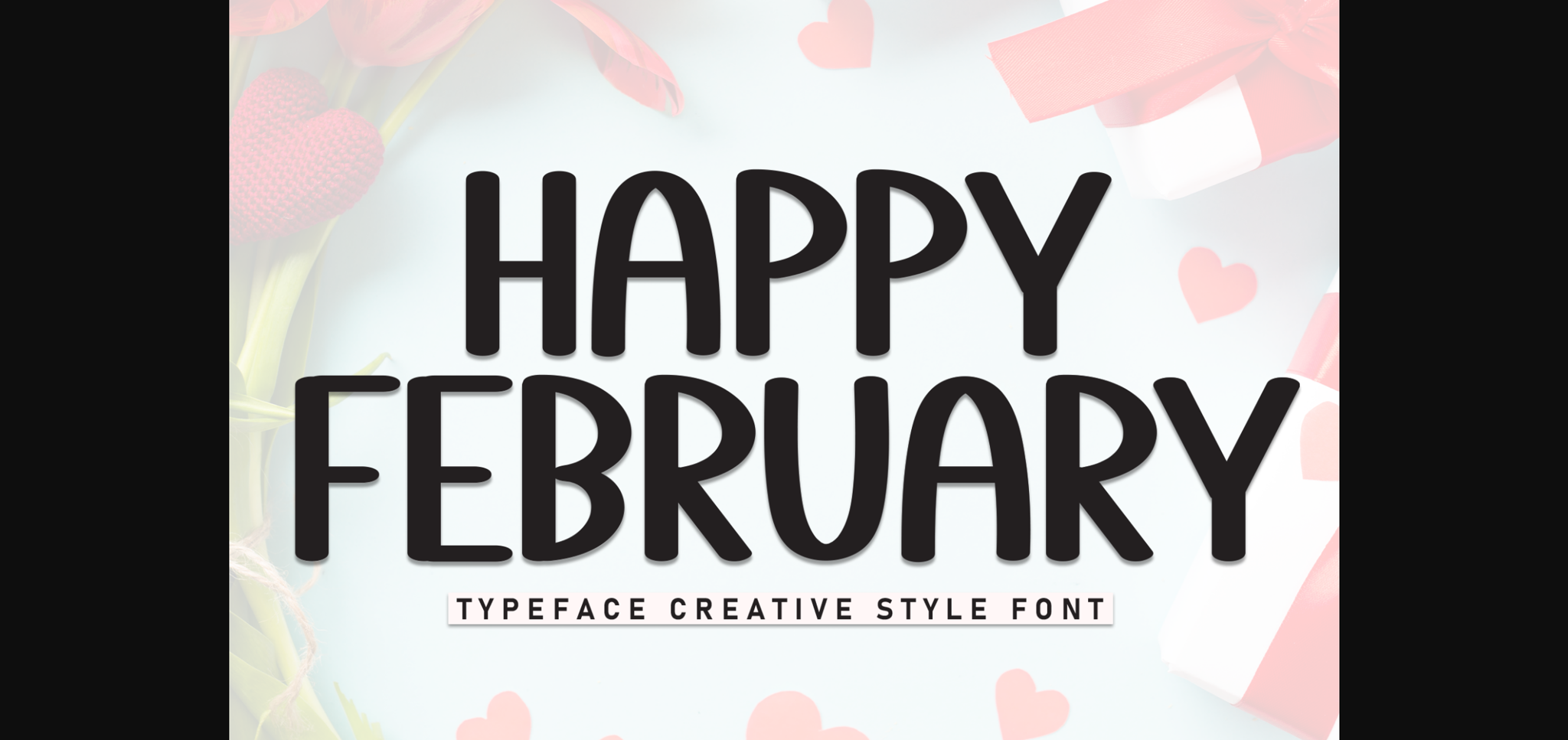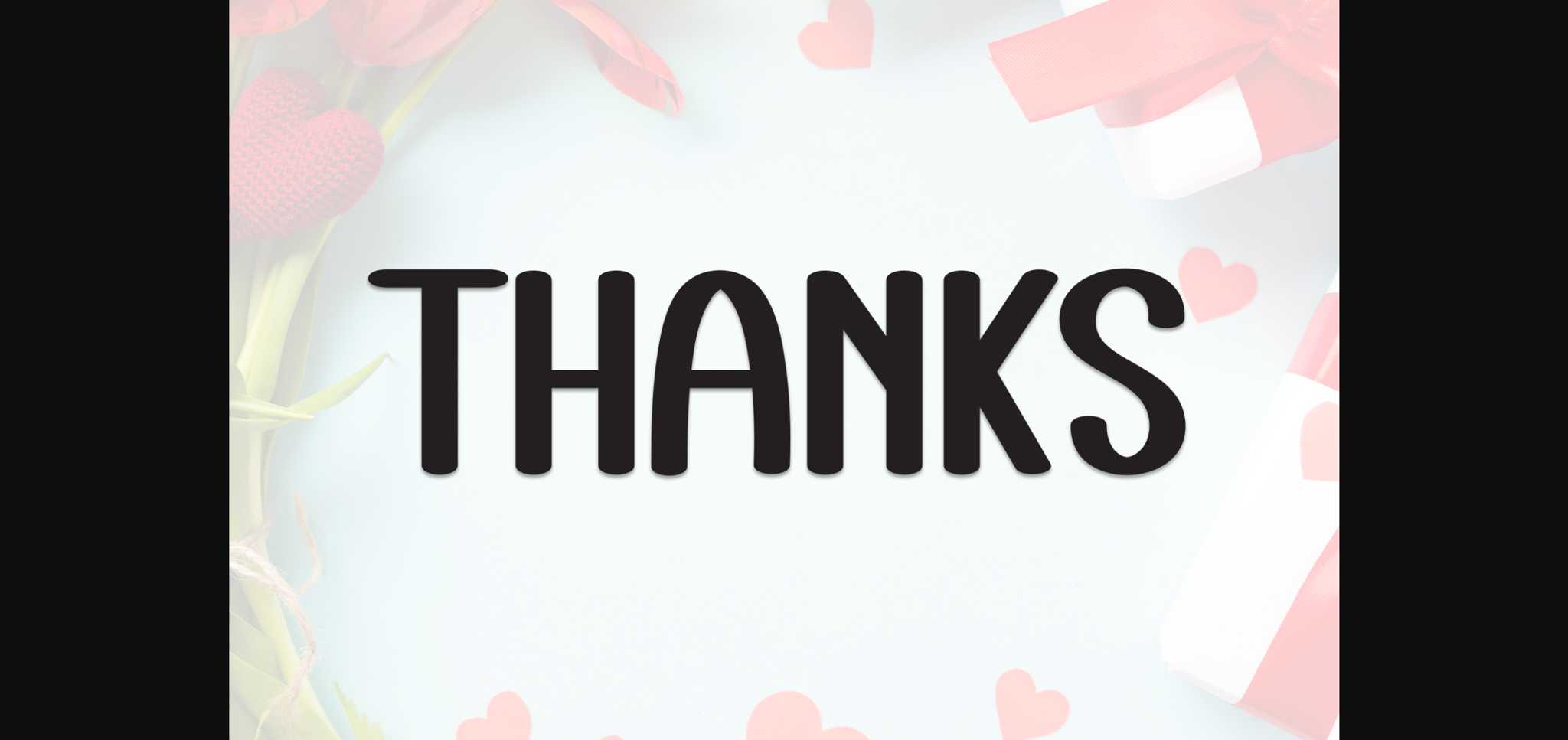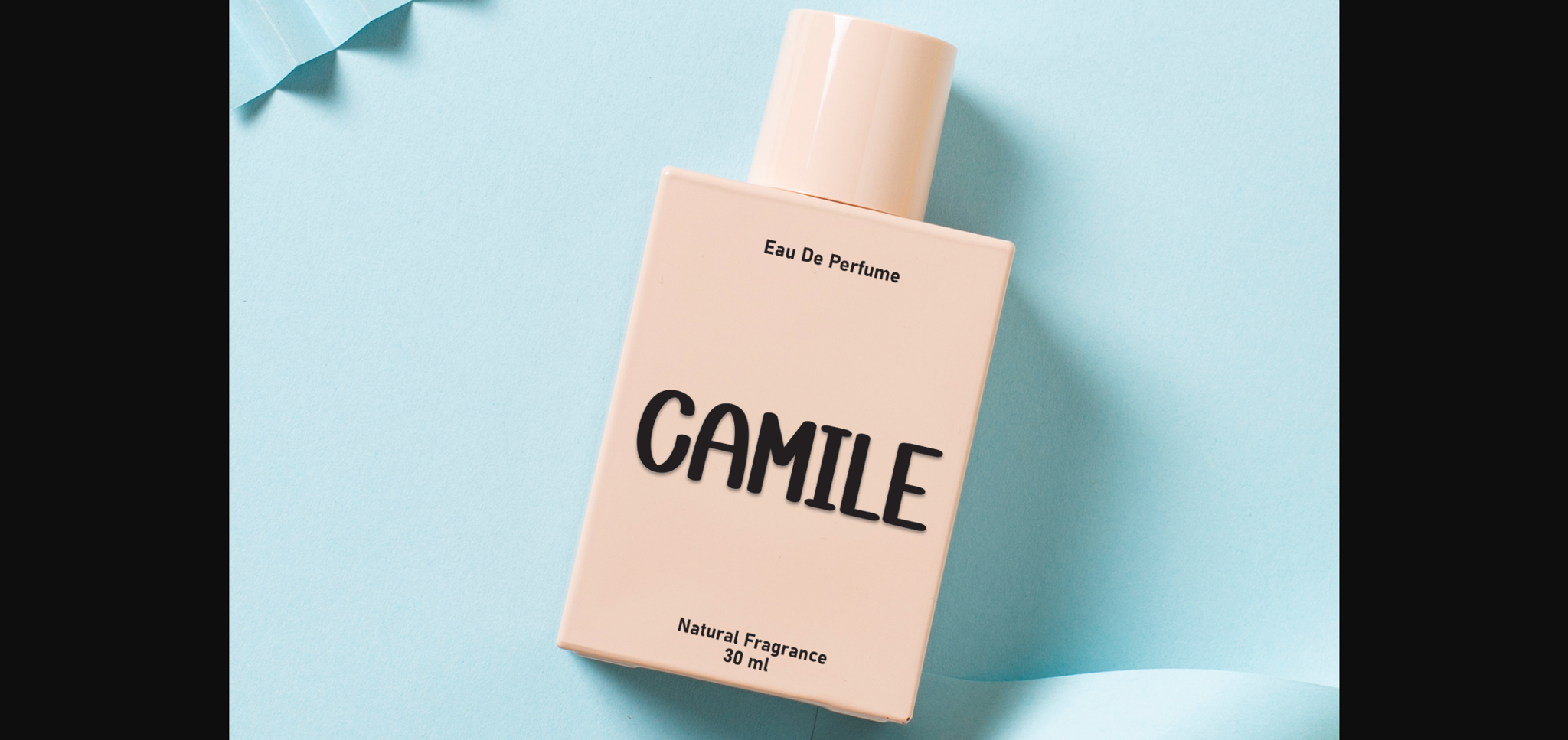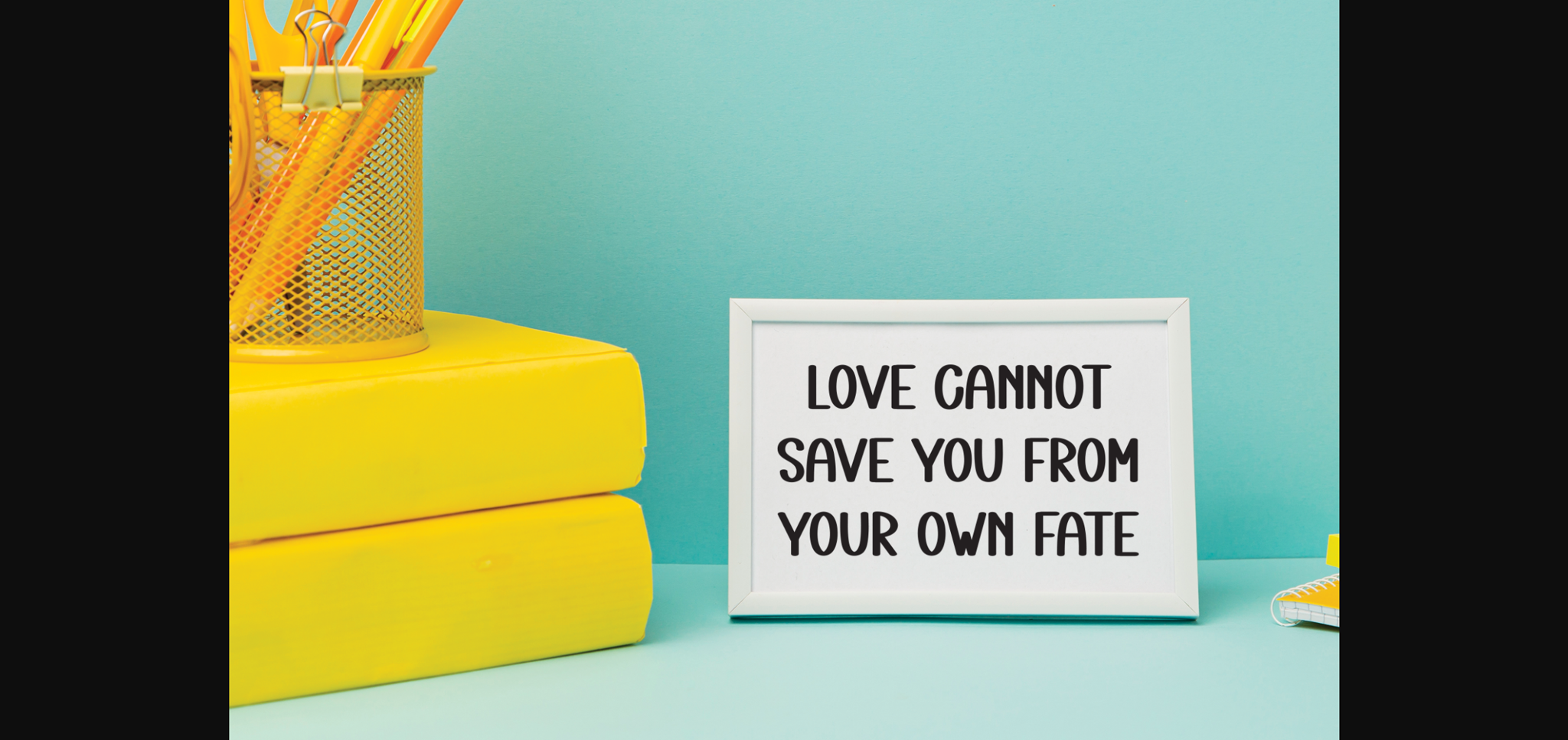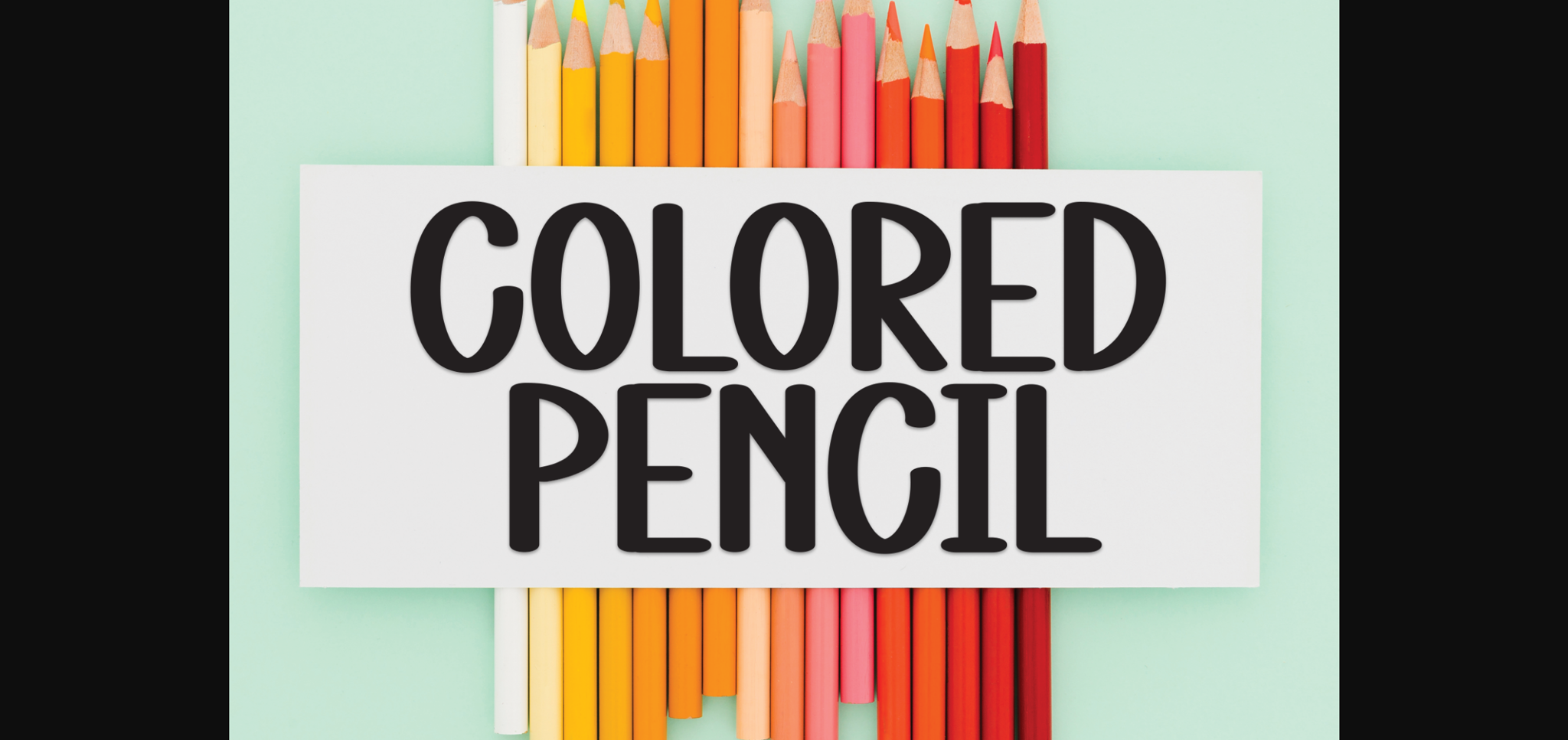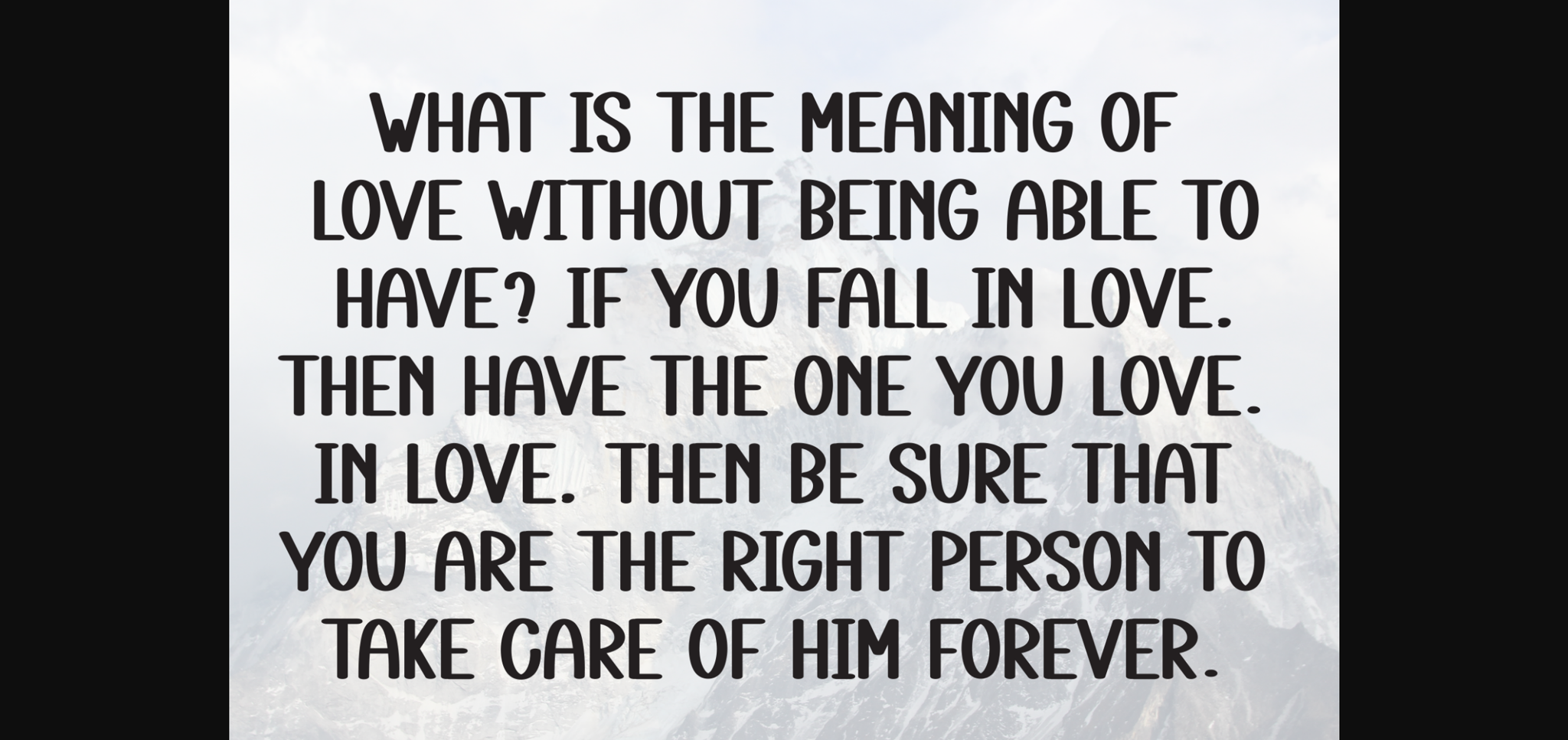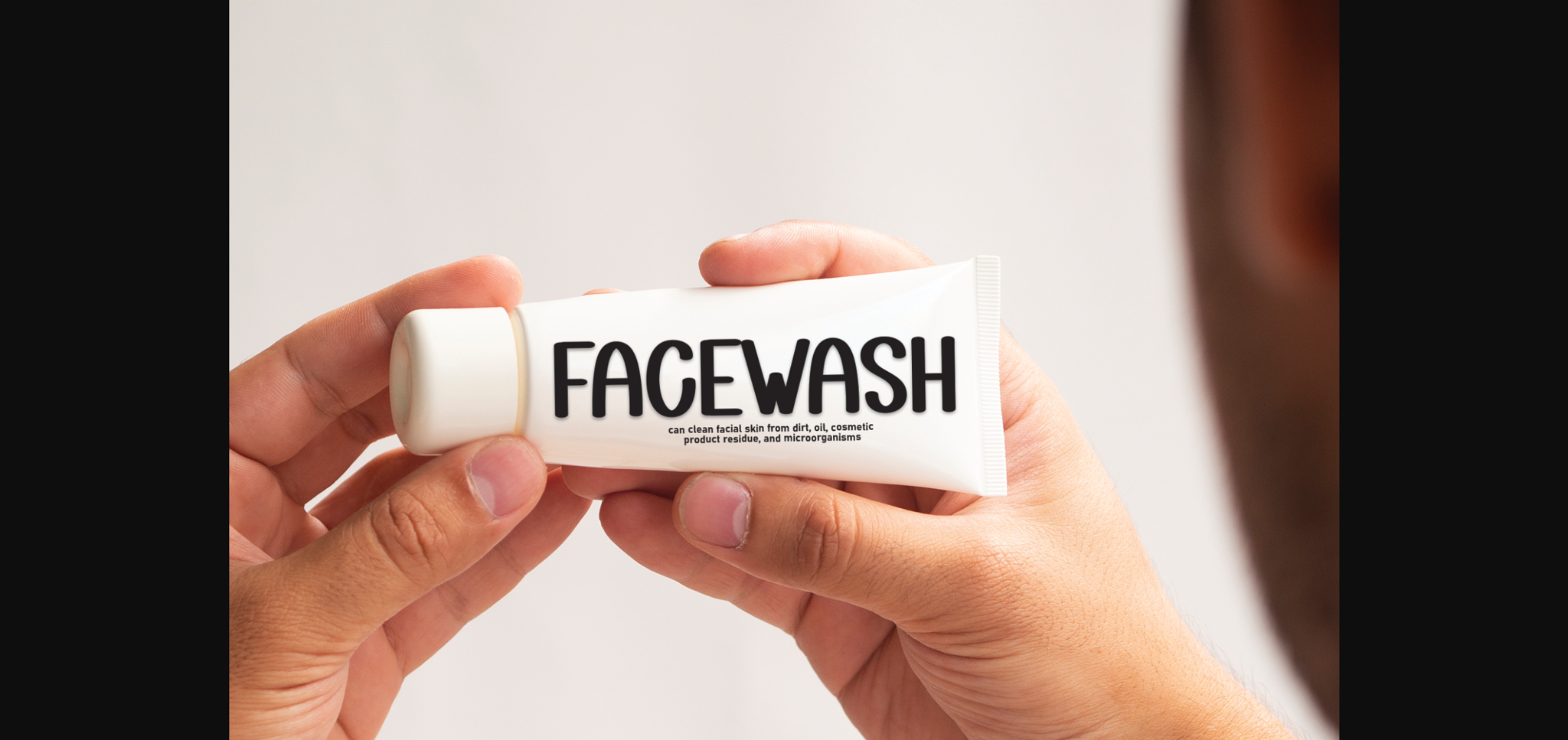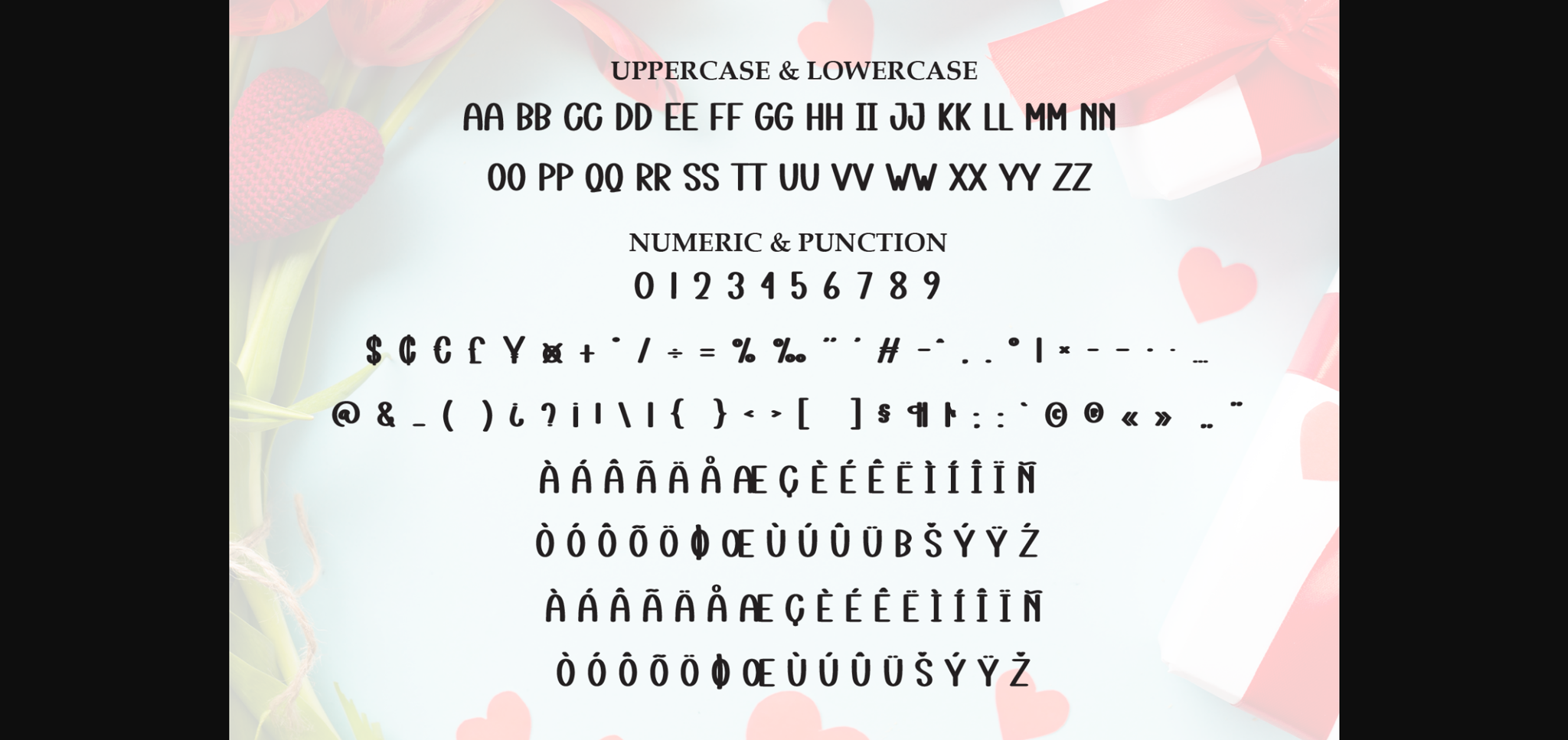
Happy February Font
About Happy February Font
Happy February is a neat and casual sans-serif font that combines simplicity with a touch of warmth. With clean lines and balanced proportions, it exudes a friendly and approachable vibe. Perfect for various design projects, Happy February brings a modern and versatile style to your typography repertoire.